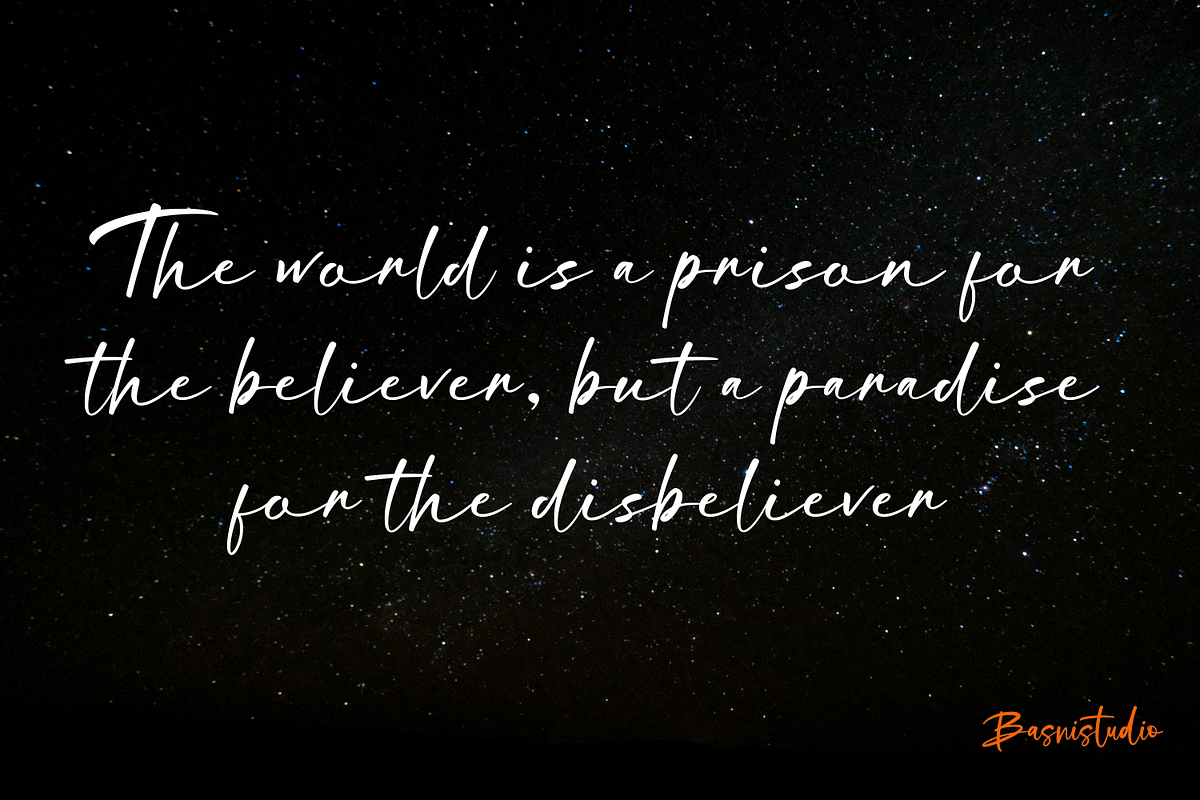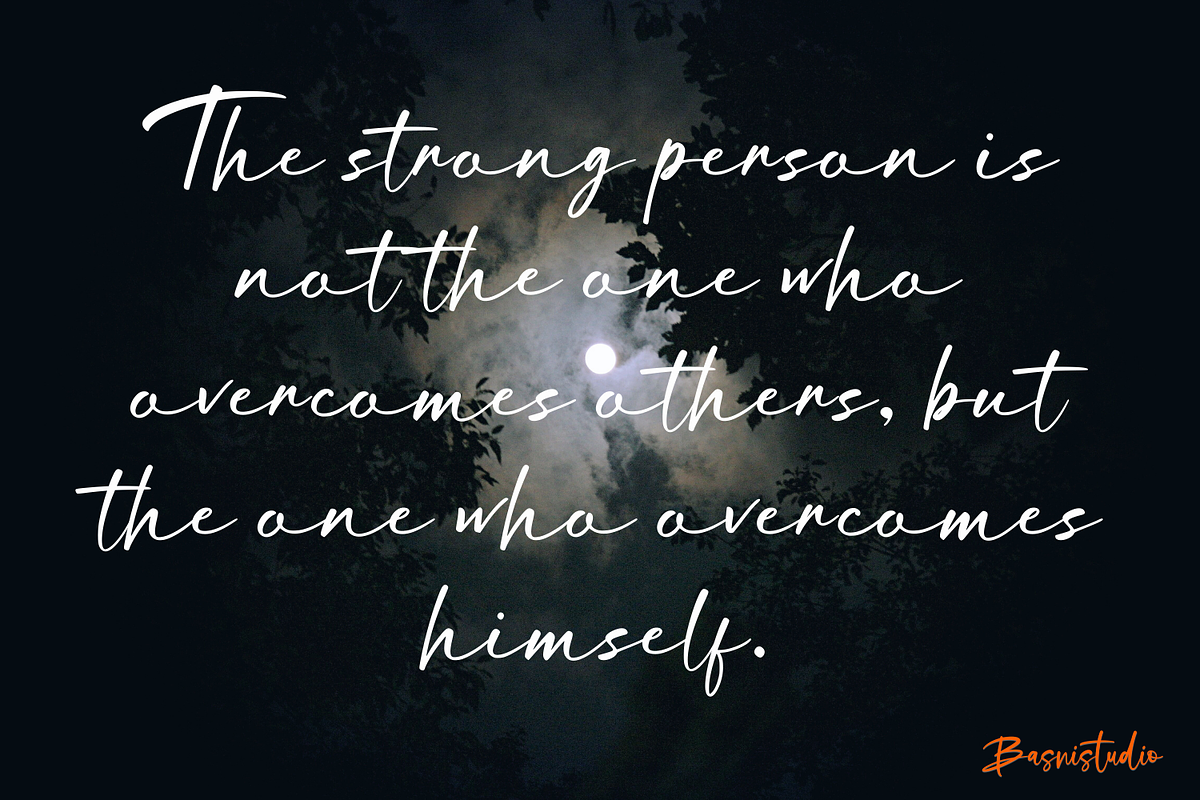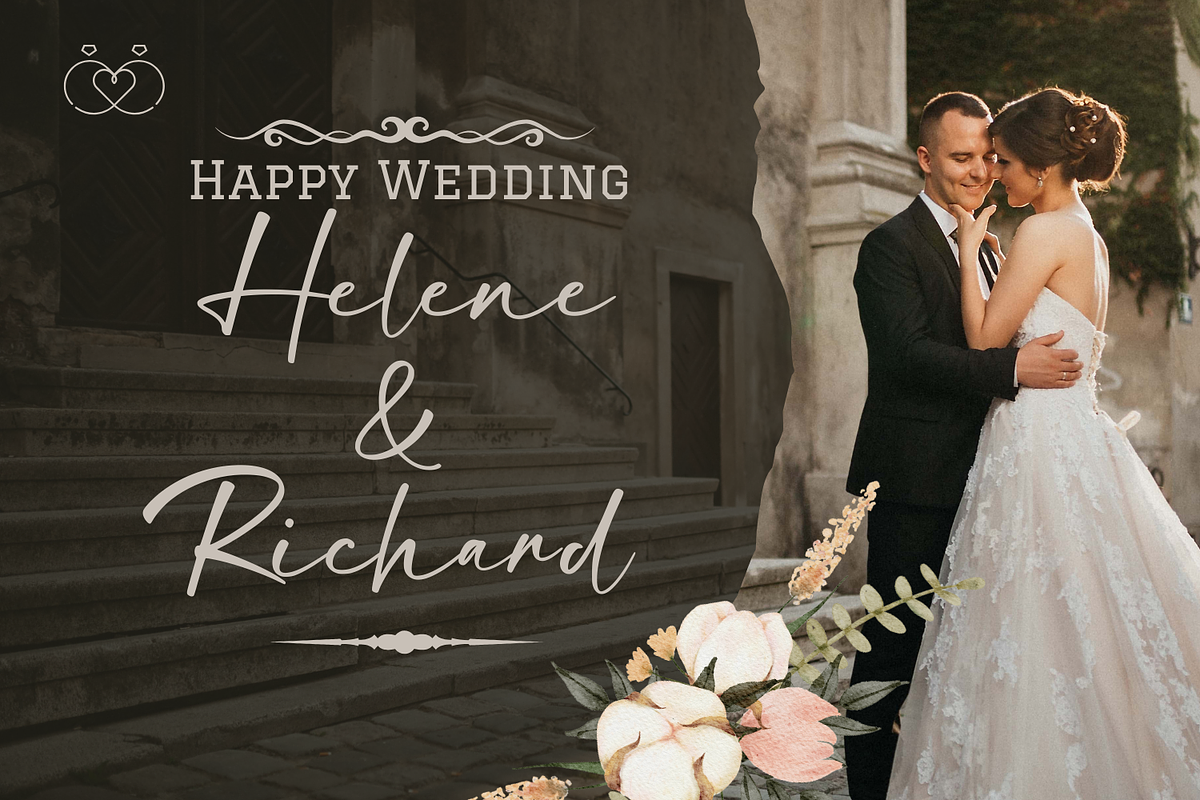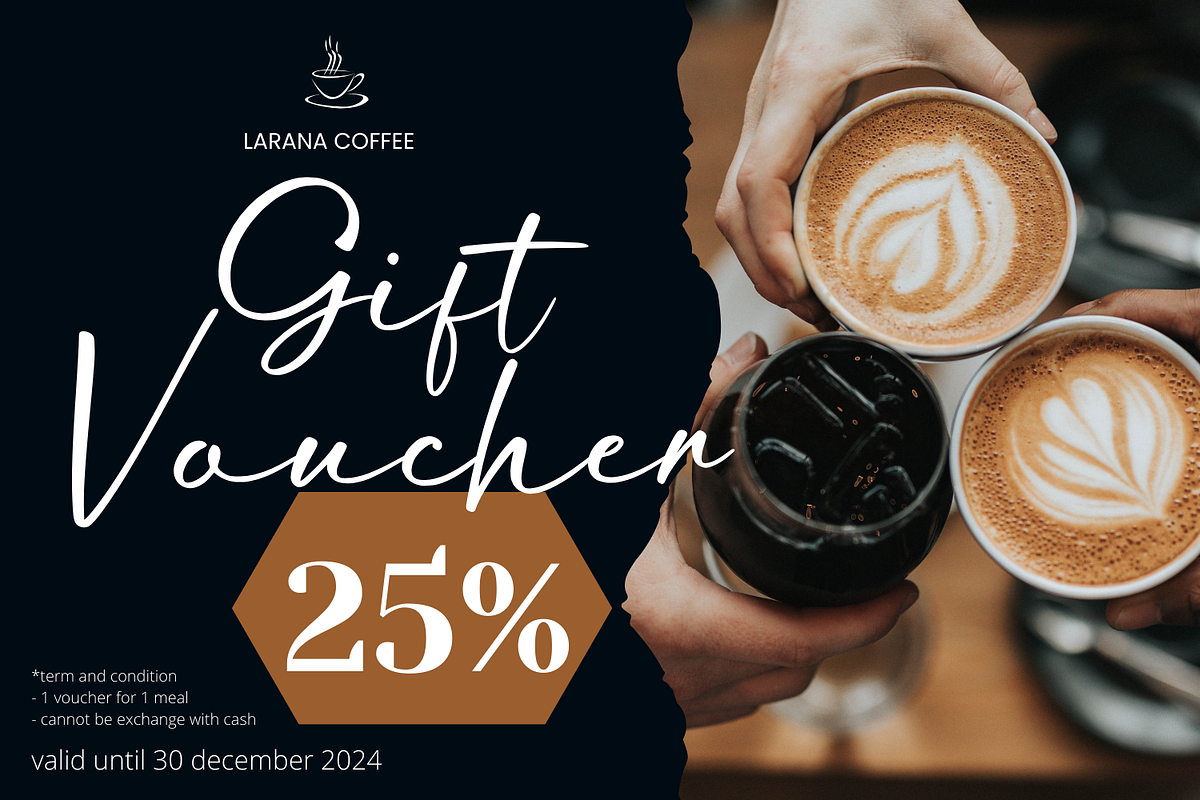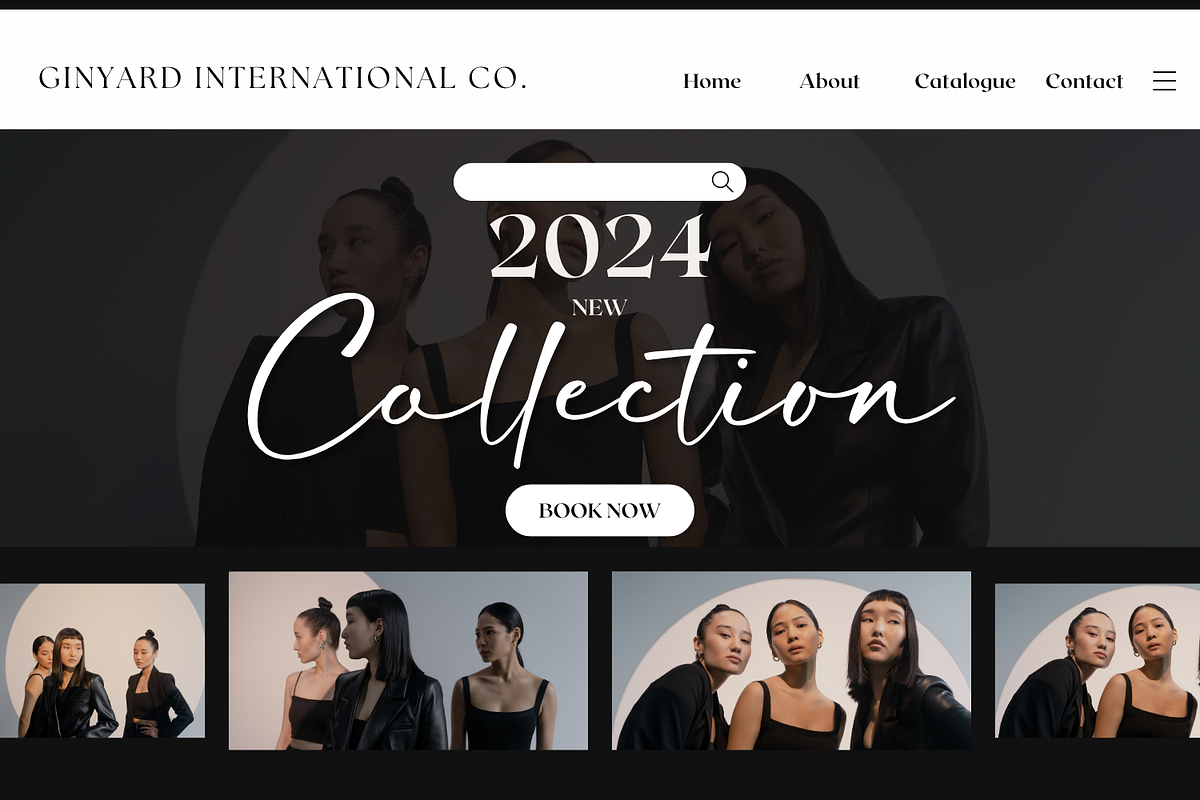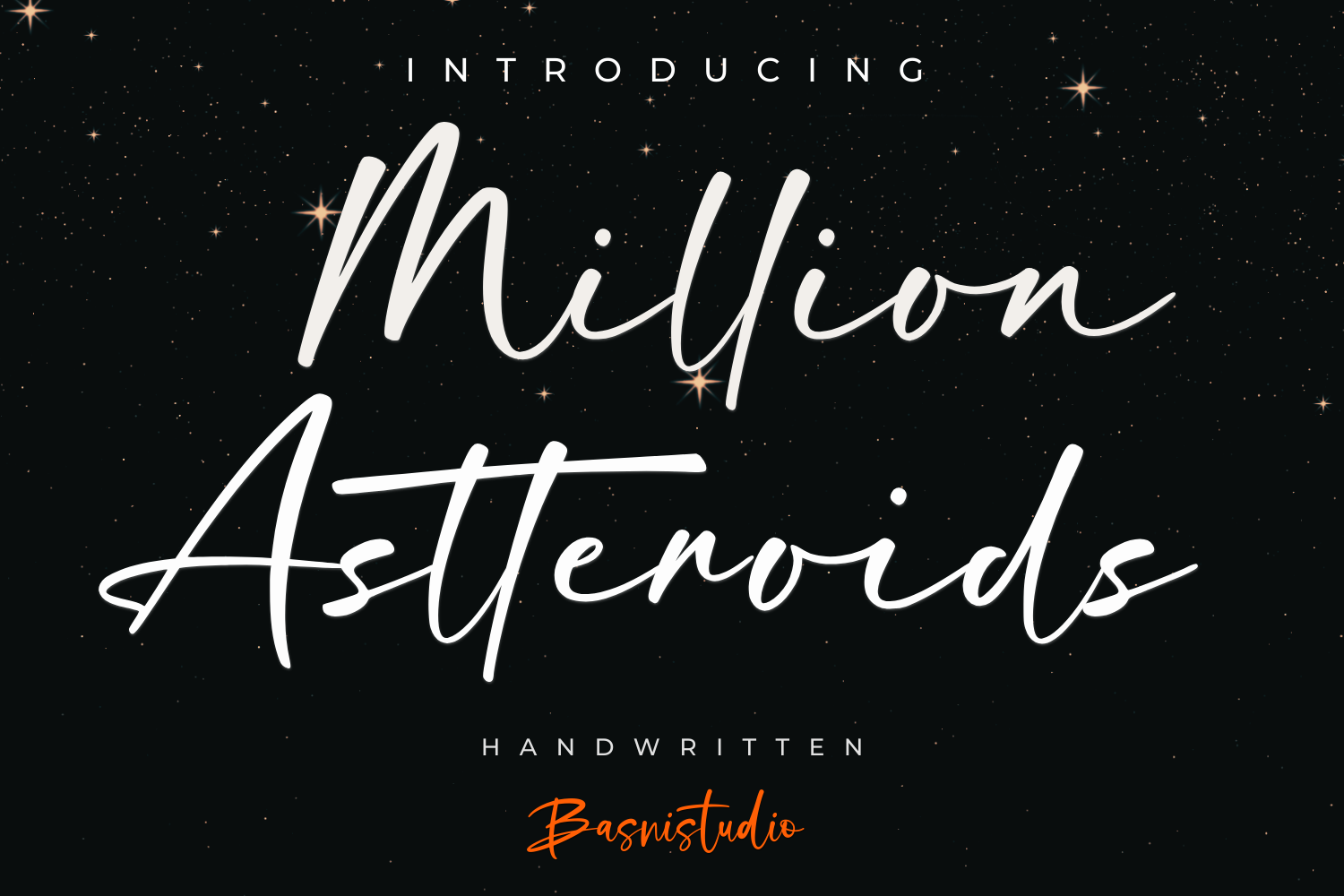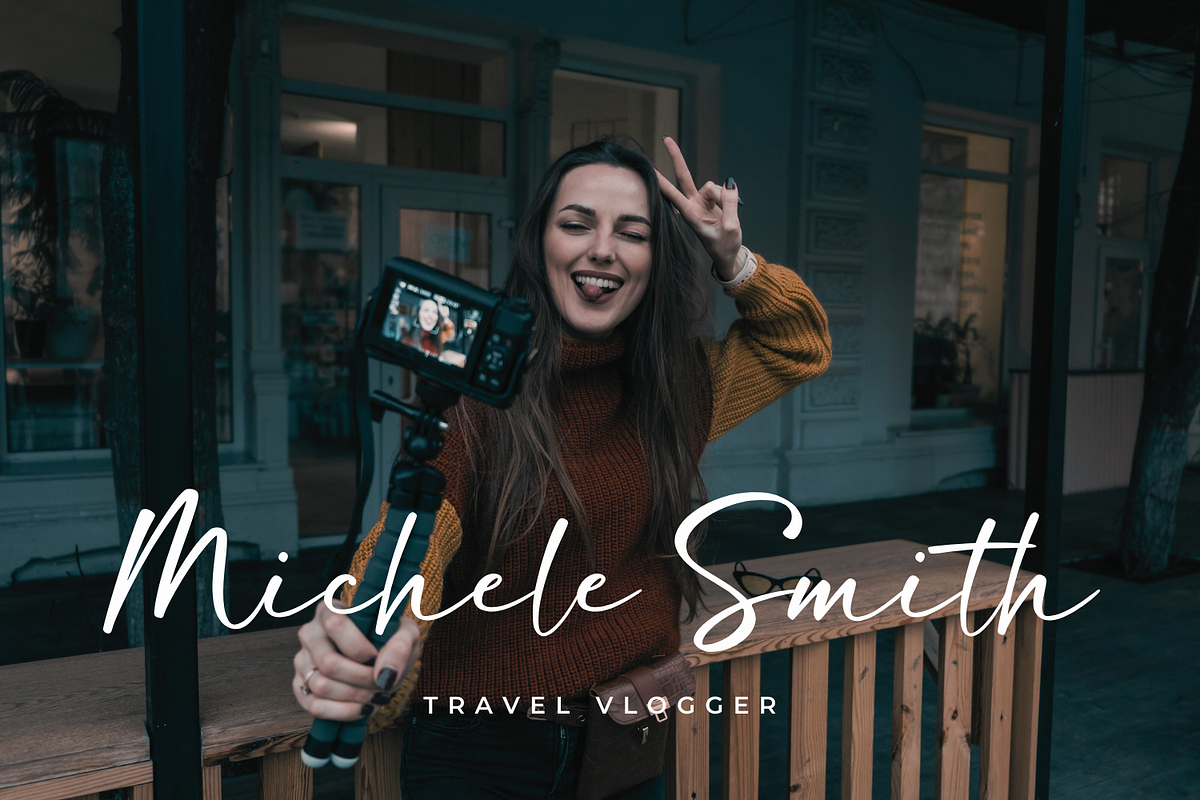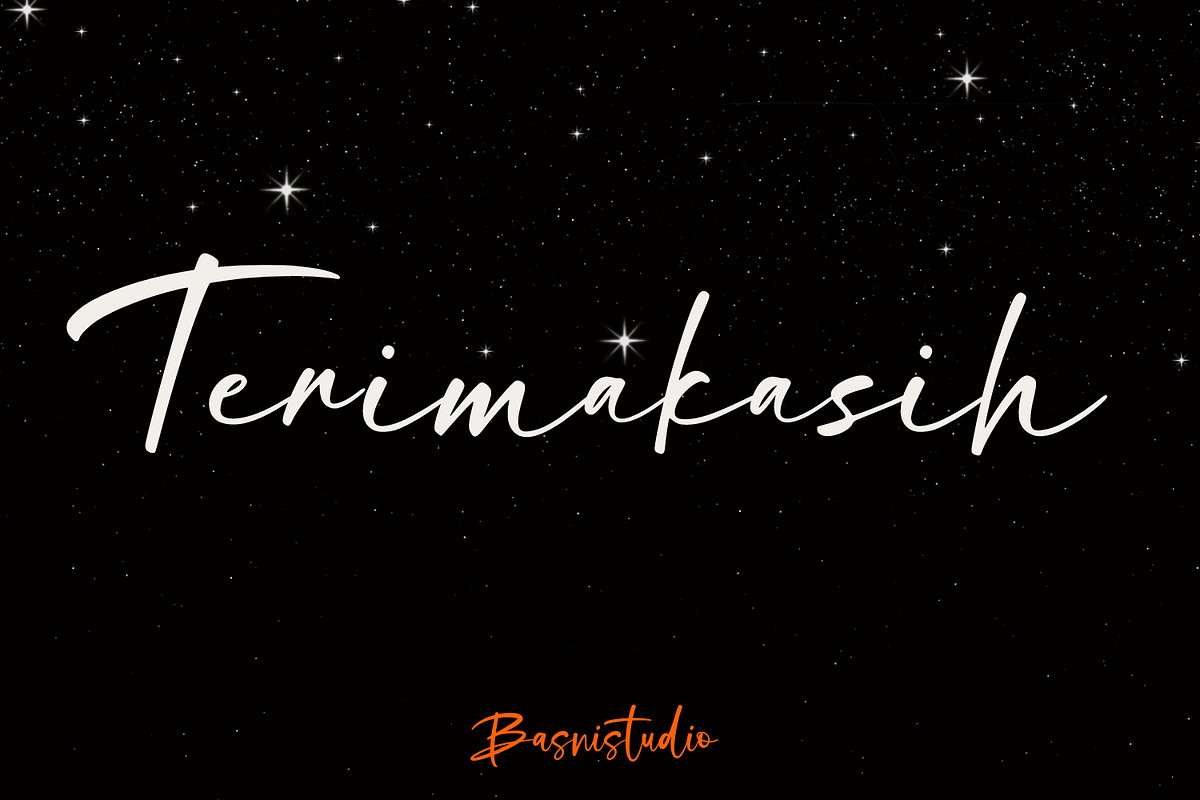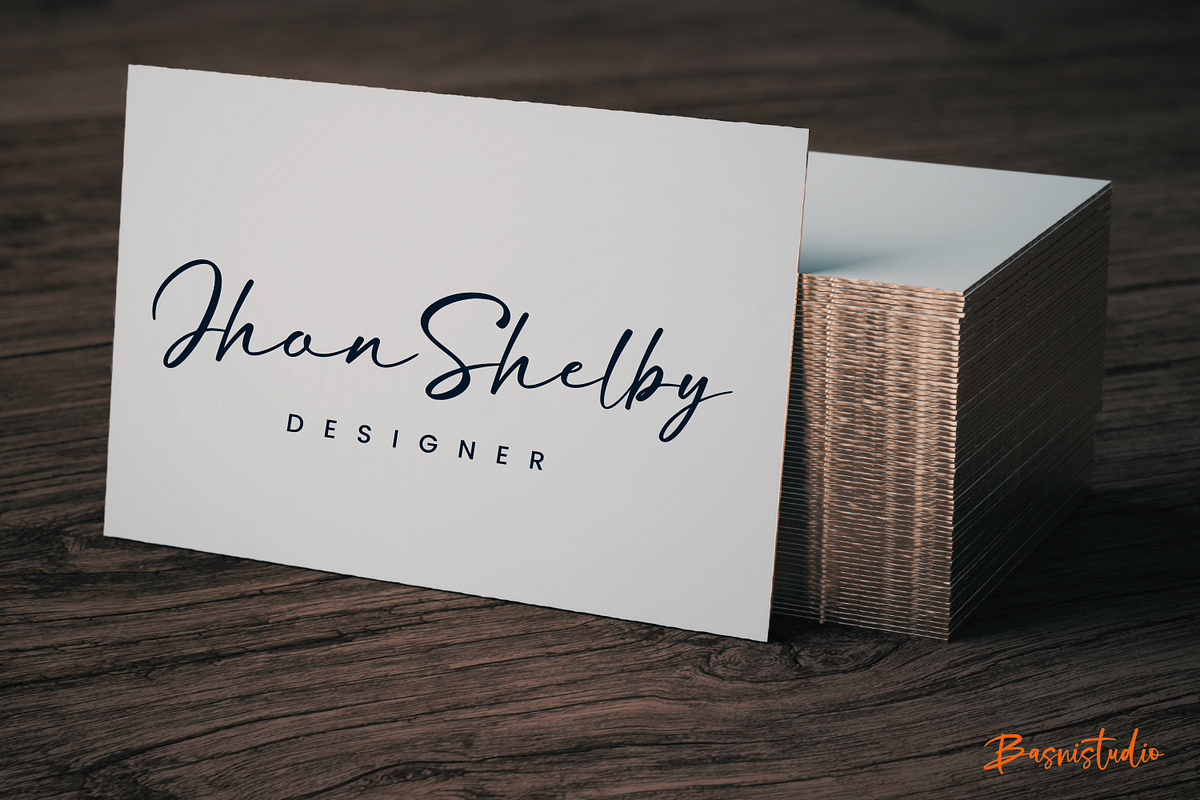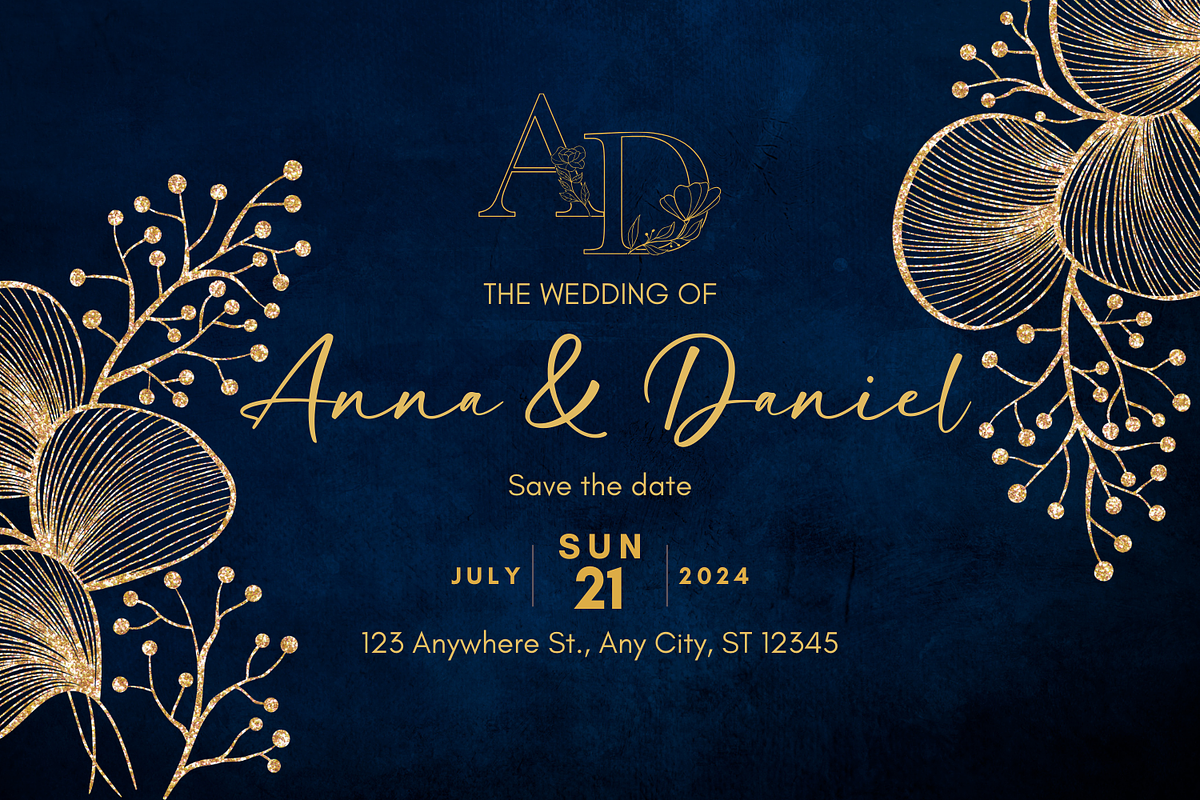
Million Astteroids Handwritten Font
Introducing Million Astteroids Handwritten Font
Million Astteroids Handwritten Font , made with Naturaly & precision, perfect for branding, websites, and editorial designs. Includes all Characters letters, multilingual support, punctuation, binding. everything can be easily accessed using software that supports OpenType. What’s include: